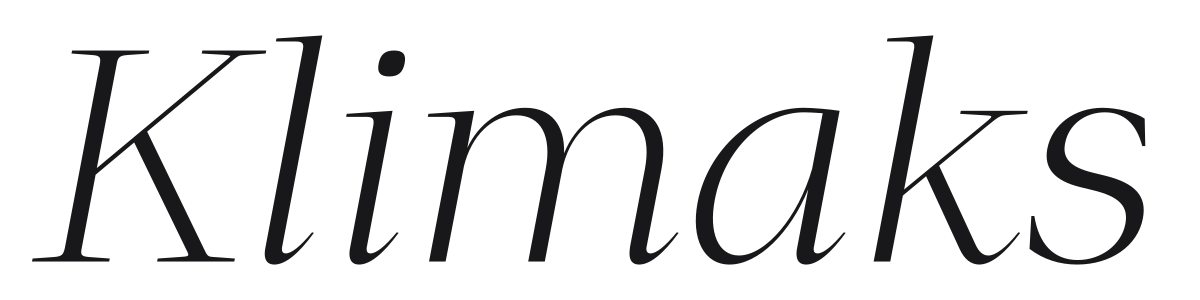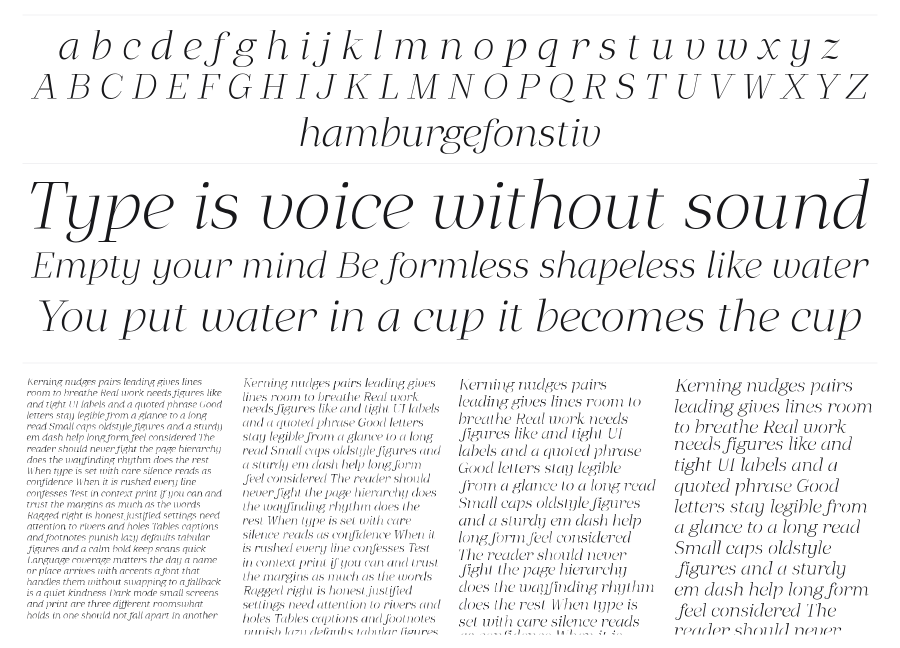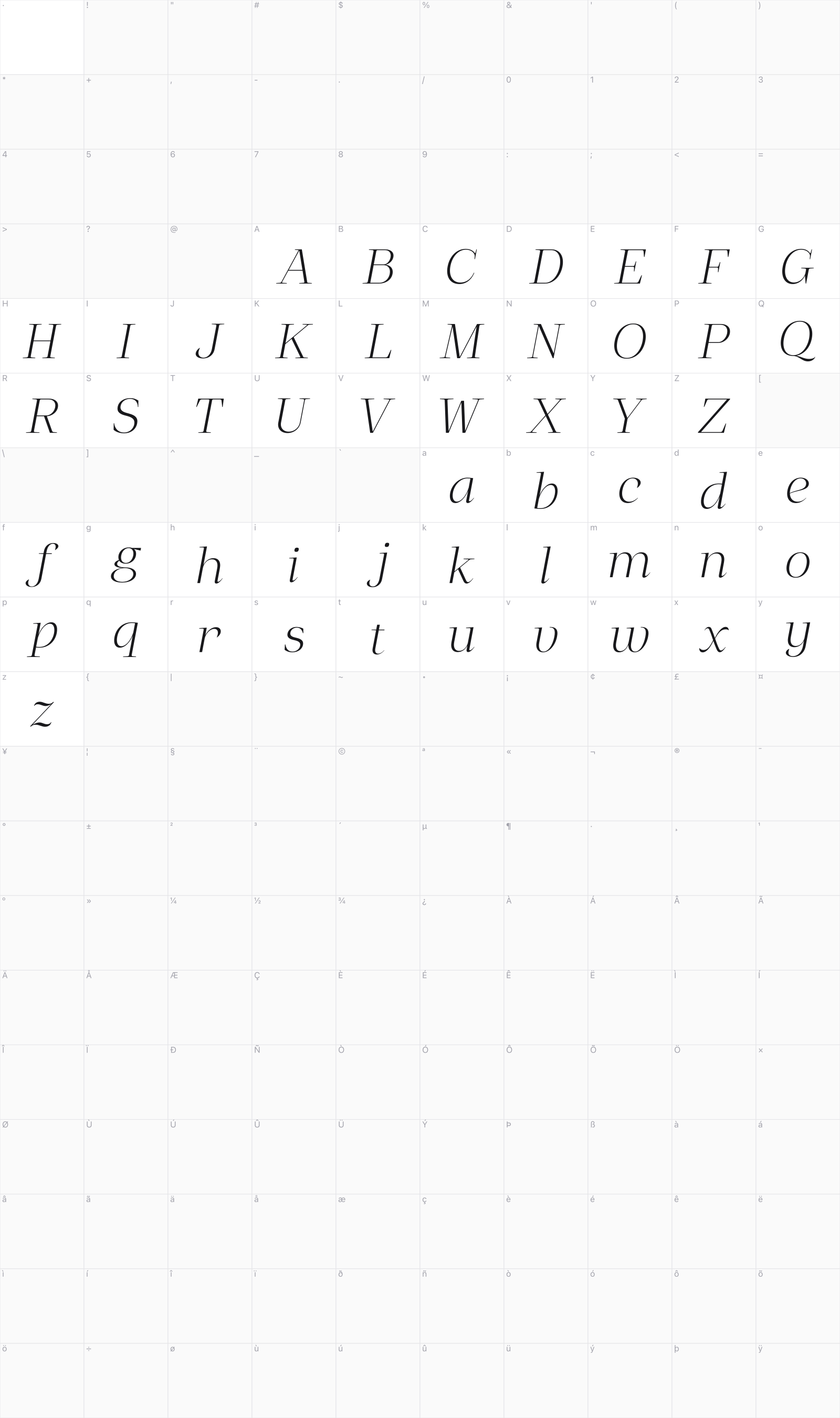
Klimaks
Klimaks is a high-contrast modern serif with hairline thin strokes and a graceful light italic cut. The design draws from Didone traditions, balancing extreme stroke contrast with open, airy proportions. It carries the quiet authority of luxury editorial typography.